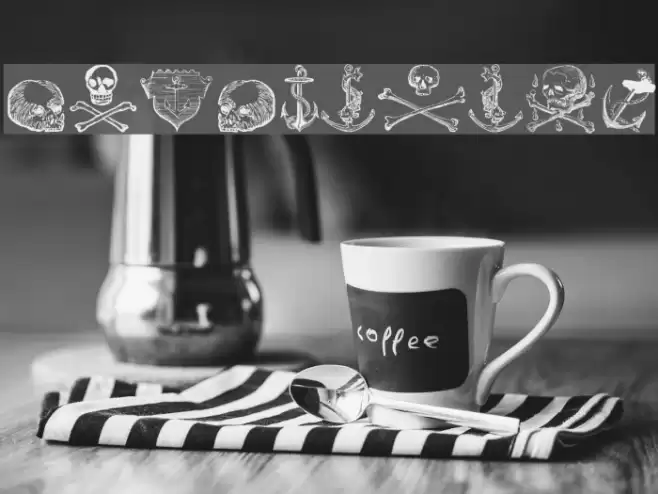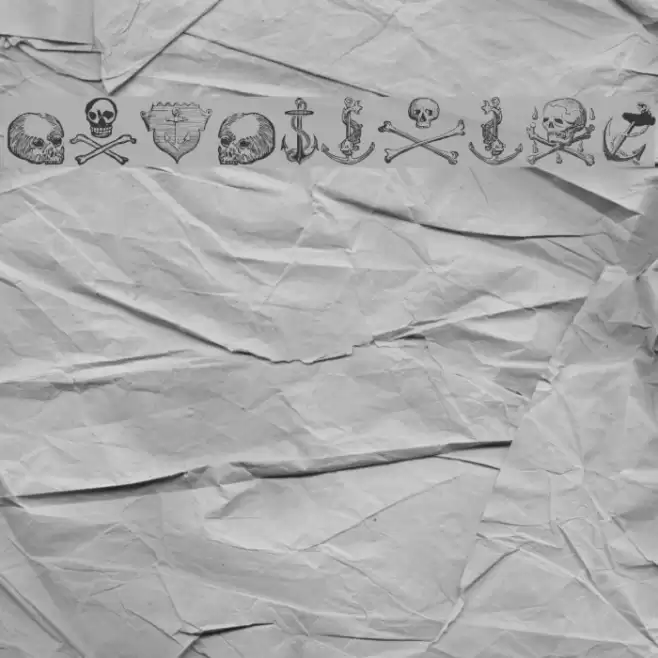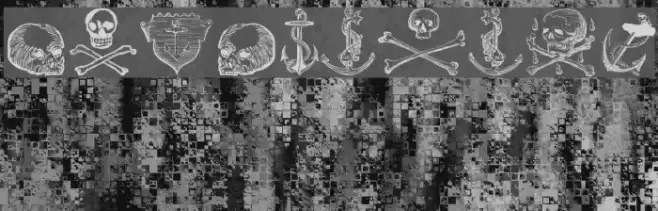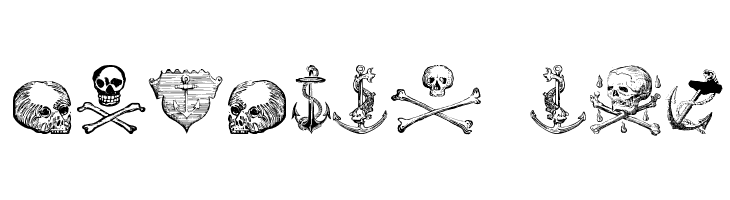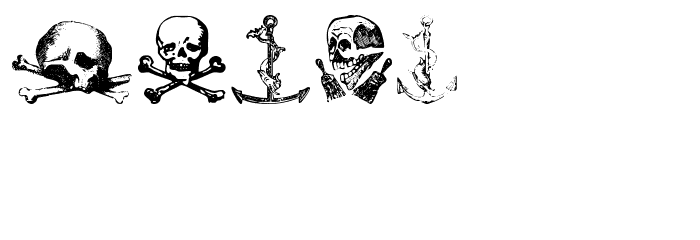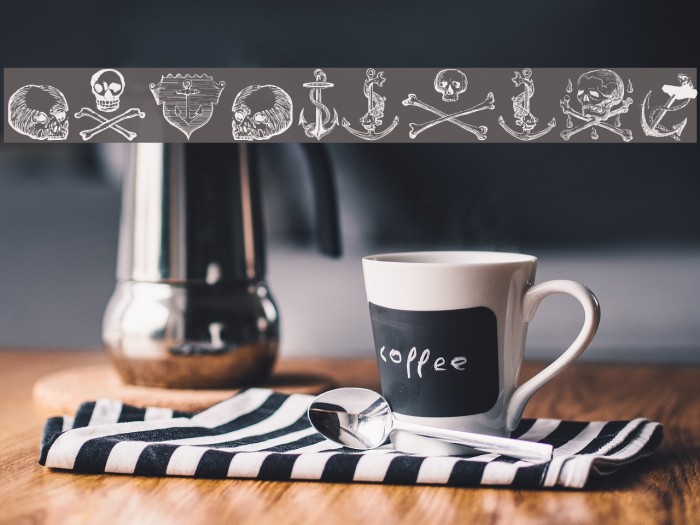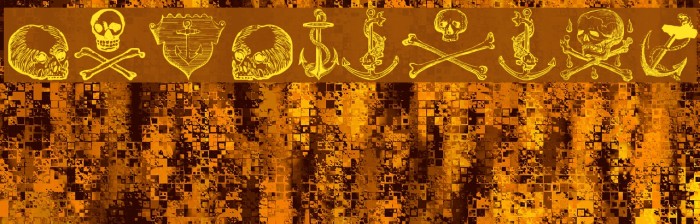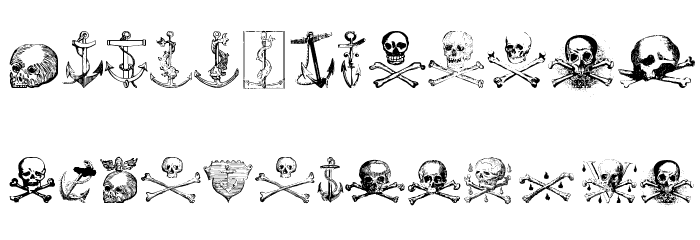
Pirates Two Font
Pirates Two Description
This is not a traditional font but rather a collection of pirate-themed decorative symbols. The characters are composed of various pirate motifs, including skulls, crossbones, anchors, and other nautical elements. Each symbol is intricately designed, capturing the essence of pirate lore with a vintage and adventurous feel. The designs are detailed, with a hand-drawn quality that adds to their charm. These symbols are ideal for projects that require a touch of the sea or a hint of danger and mystery. They are not suitable for body text but can be used effectively in decorative contexts.
- Proposed Projects: Ideal for themed party invitations, pirate-themed events, treasure hunt maps, or decorative elements in nautical designs.
- Overall Style: Vintage, Decorative
- Use Case: Logos, Decorative elements